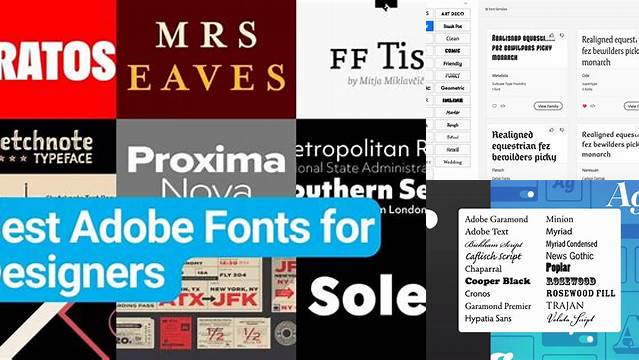
Understanding Adobe Fonts and Its Perks
Alright, guys, before we jump into the free stuff, let's quickly chat about what makes Adobe Fonts so great in the first place. Adobe Fonts is an online service that gives you access to a huge collection of high-quality fonts, all ready to be used in your creative projects. Think of it as your one-stop shop for typography. They have fonts for literally everything, from super-stylish display fonts perfect for headlines to classic, reliable body fonts that are easy to read. The beauty of Adobe Fonts is that they’re designed to work seamlessly with Adobe Creative Cloud apps like Photoshop, Illustrator, and InDesign. This makes it super easy to find, activate, and use fonts directly within your workflow. No more hunting around for fonts and figuring out how to install them. It's all right there at your fingertips! Plus, Adobe Fonts licenses are usually pretty straightforward, meaning you can use them for both personal and commercial projects, which is a huge plus for freelancers or small business owners. The collection is always growing, so you will never run out of design options. You can find everything from elegant serifs to bold sans-serifs, quirky scripts, and everything in between. Being able to access such a diverse range of fonts can take your design from average to amazing. Adobe also provides excellent support and resources, so if you ever run into any issues or have questions, help is readily available. The integration with other Adobe products is a huge advantage. This streamlines your design process and helps you stay organized. And the quality of the fonts is unmatched. You can be sure that every font is designed to look great, regardless of its use. It's a massive time saver and can significantly improve your creative output. Let's face it, a good font can make or break a design, and Adobe Fonts gives you the power to choose the perfect one every time. So, even though the cost can be a factor, the value you get from the fonts and the overall ease of use is undeniable.